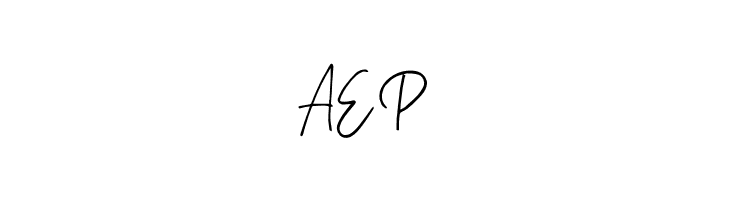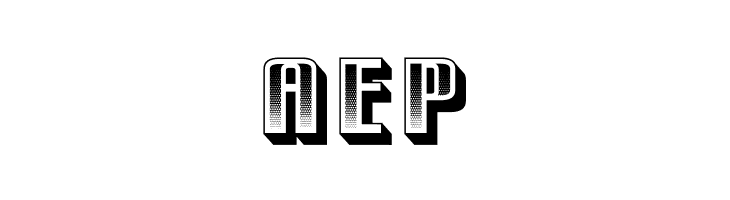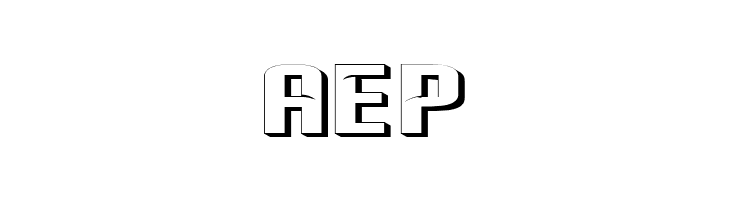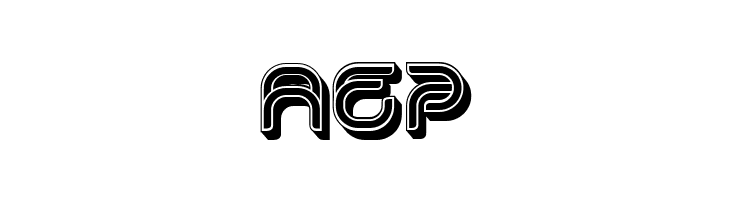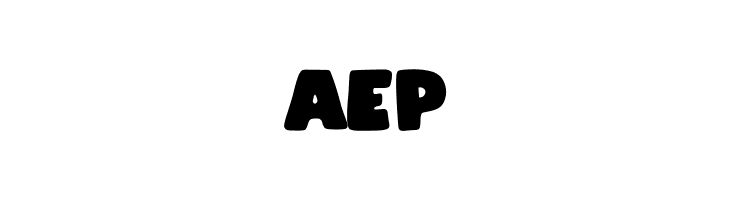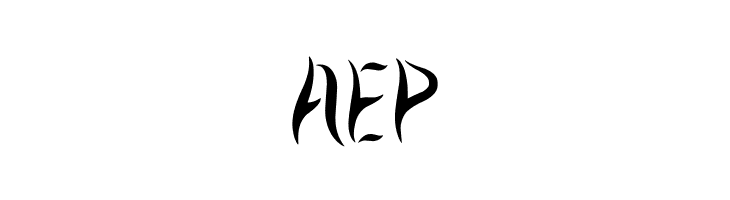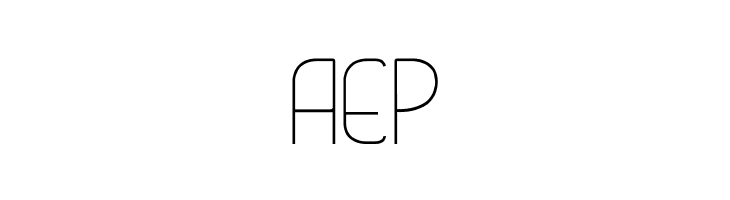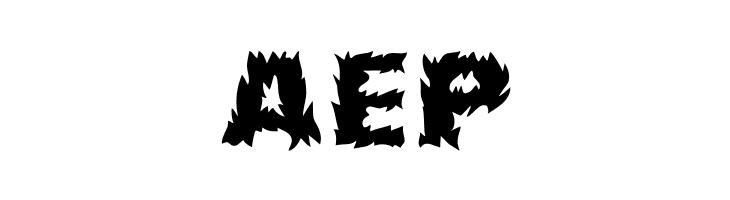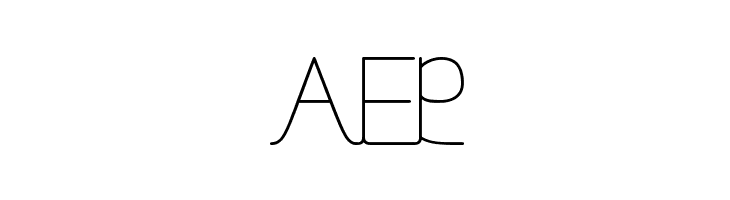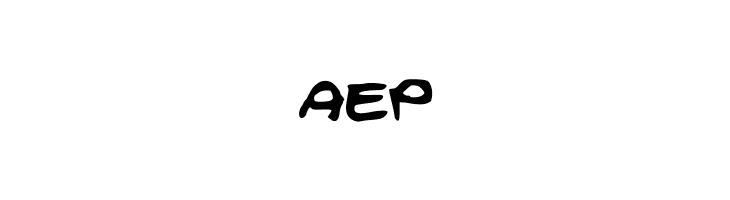
An elegant script font with flowing cursive style and intricate flourishes.
A modern, handwritten font with fluid, connected strokes and a personal touch.
A bold, decorative serif font with a hatched texture and classic yet modern appeal.
A lively and playful script font with dynamic loops and swirls.
A lively and playful script font with interconnected strokes and a whimsical touch.
A bold, decorative font with a 3D effect and striped patterns.
A bold, decorative font with a 3D effect and textured fill.
A bold, decorative font with a unique striped pattern and geometric structure.
A bold, distressed font with a grunge, textured appearance.
A bold, dynamic script font with flowing, cursive characters.
A bold, cursive font with elegant, interconnected characters and a modern yet classic appeal.
A bold, hollow italic font with a modern, geometric style.
A bold, hollow font with a 3D effect and geometric design.
A bold, geometric, italic font with strong outlines and a modern, edgy style.
A bold, geometric font with a three-dimensional effect and modern style.
A bold, geometric font with playful circular and angular elements.
A bold, geometric font with circular and angular elements, perfect for striking designs.
A playful and energetic script font with elongated, flowing lines and a casual feel.
A bold, artistic font with flowing, interconnected lines and a hand-drawn style.
A bold, playful font with rounded, whimsical characters and decorative elements.
A bold, playful handwritten font with dynamic strokes and a lively appearance.
A lively handwritten font with fluid, organic strokes and a playful elegance.
A bold, geometric font with a three-dimensional shadow effect.
A bold, three-dimensional font with dotted inner detailing and strong shadow effects.
A stylish script font with elegant, flowing cursive strokes.
A futuristic, geometric font with consistent stroke width and uniform character heights.
A modern, continuous line font with a fluid and artistic style.
A bold, playful, and hand-drawn display font with a whimsical and energetic style.
A bold, decorative font with a three-dimensional effect and modern, industrial style.
Ornate, fantasy-themed decorative symbols with intricate details.
A modern, bold sans-serif font with geometric influences.